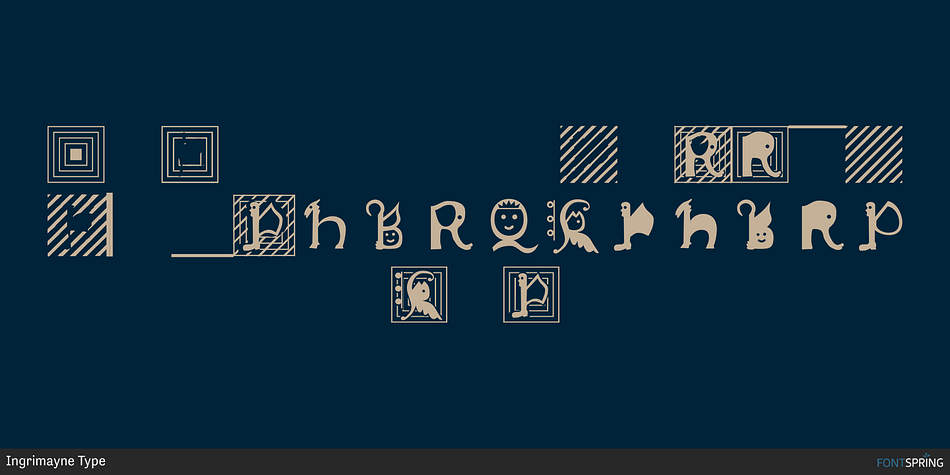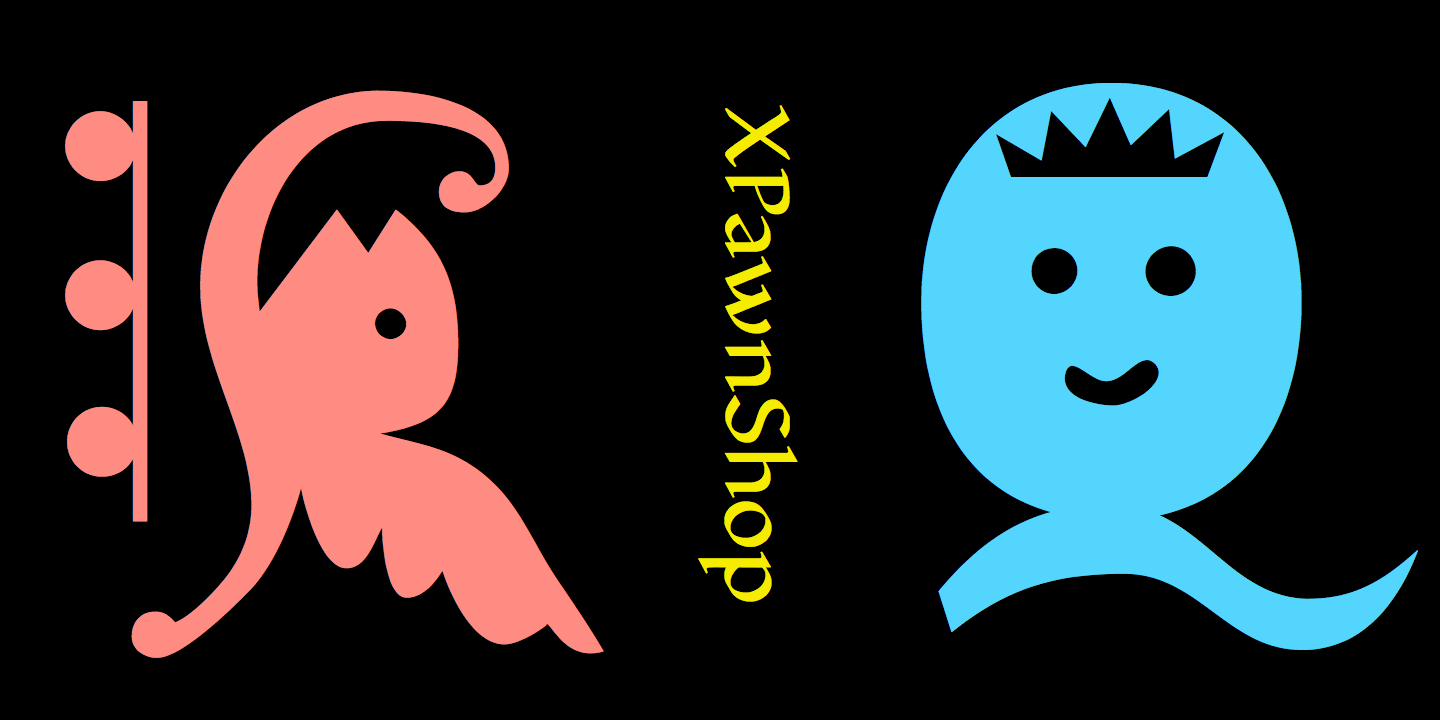
XPawnShop Regular
Designed by Robert Schenk, XPawnShop is a dingbat font family. This typeface has three styles and was published by Ingrimayne Type.
XPawnShop is a typographical chess font; the pieces are letters. The Pawn is an awkward letter P, the knight is a horse in the shape of an h, the bishop is a decorative letter B, the rook is an elephant with an R shape, the queen is a Q, and the king is an ornate K. Two other XPawnShop fonts are made of very simple pieces, but as a bonus, both have the set of dominoes from the unicode block 1F030 to 1F093.
The key layout is a bit complicated; see the key guide for detailed information on how to position pieces correctly.